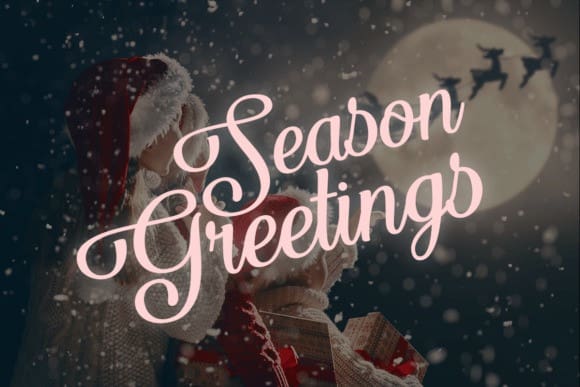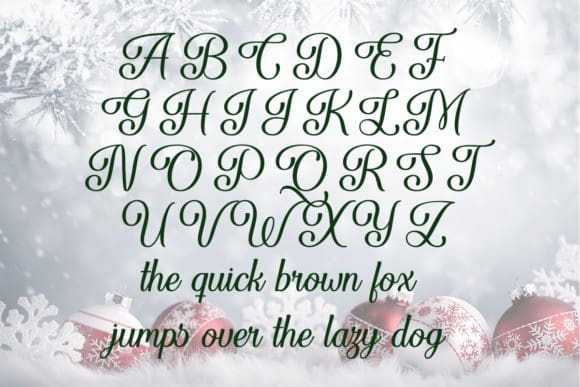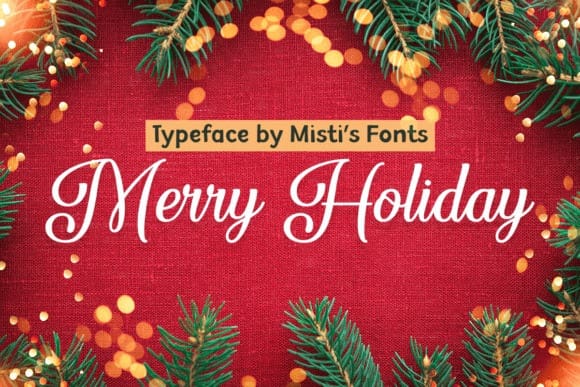
Merry Holiday Font
Merry Holiday Font is an elegant calligraphy typeface that captures the spirit of the holiday season. With its flowing, graceful curves and timeless charm, it’s perfect for festive invitations, cards, gift tags, and more. Add a touch of sophistication to your holiday designs!